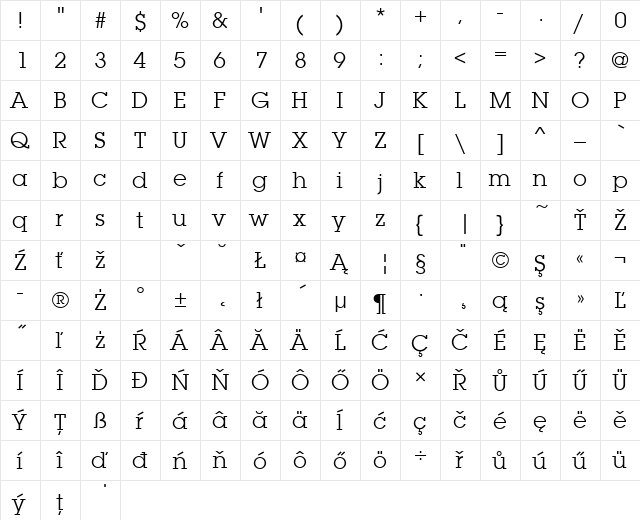
LubalinGraItcTEE Regular
Design Context for LubalinGraItcTEE Typeface
LubalinGraItcTEE offers clean, dependable letterforms without strong stylistic allegiance, making it a practical choice for designers who need flexibility.